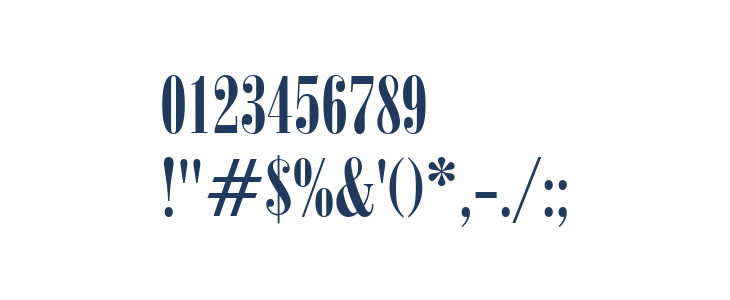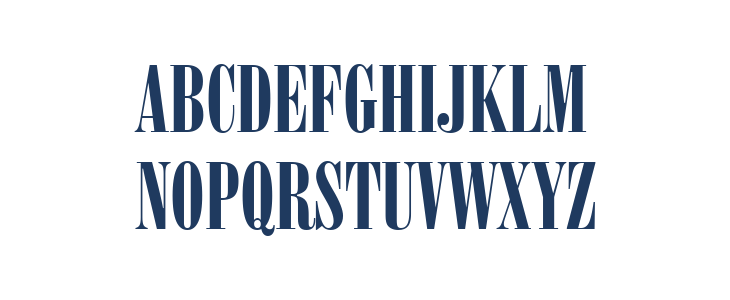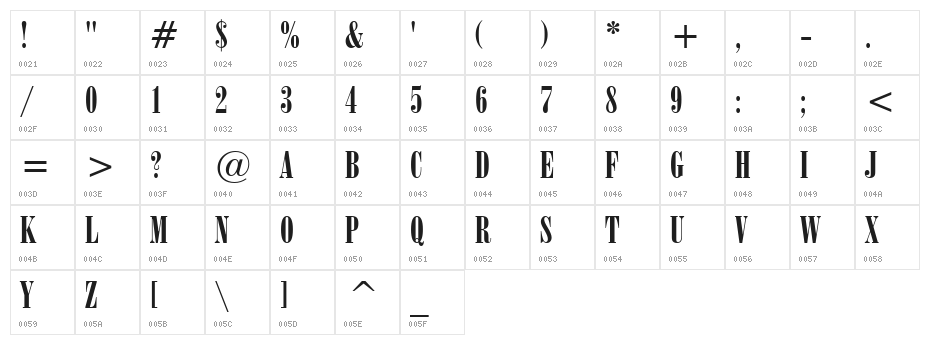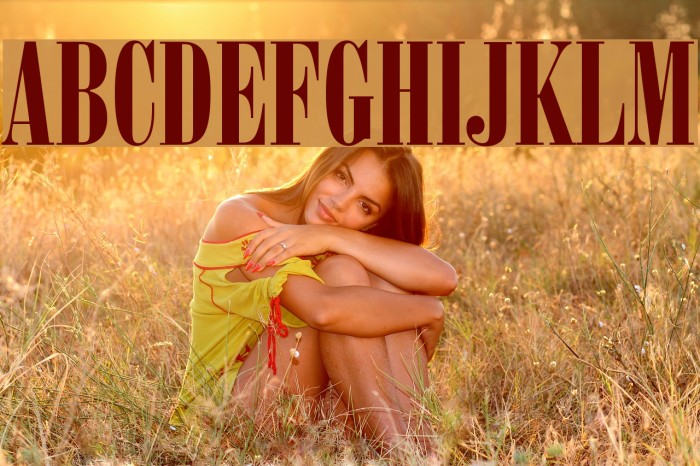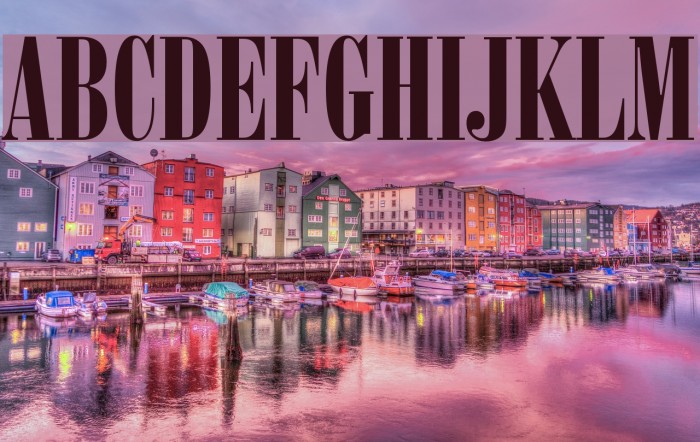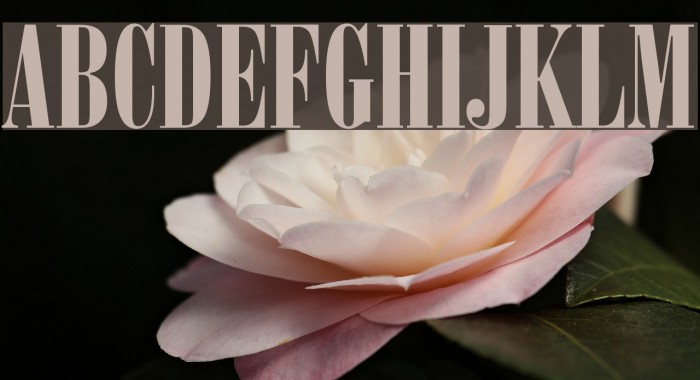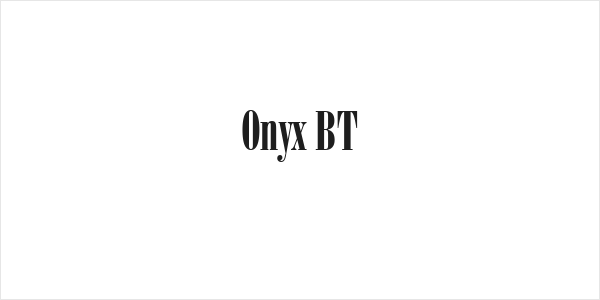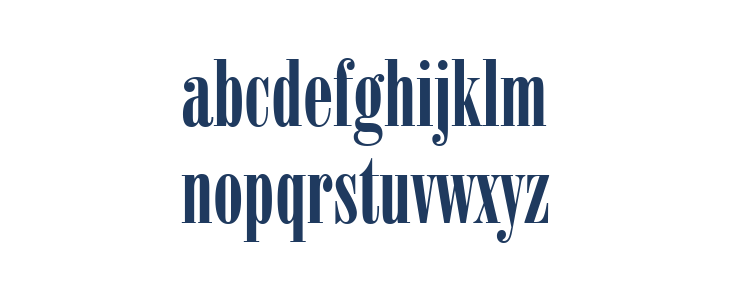
Onyx BT Font
Onyx BT Description
This font features a bold and striking design with high contrast between thick and thin strokes. The uppercase letters are tall and commanding, while the lowercase letters maintain a consistent style with slightly rounded edges. The numerals are distinct and clear, making them easily readable. Special characters are designed with the same boldness, ensuring they stand out in any text. The overall appearance is both elegant and assertive, making it suitable for impactful headlines and titles.
| Proposed Projects | This font is perfect for magazine covers, poster designs, branding projects, and any application where a strong visual impact is desired. |